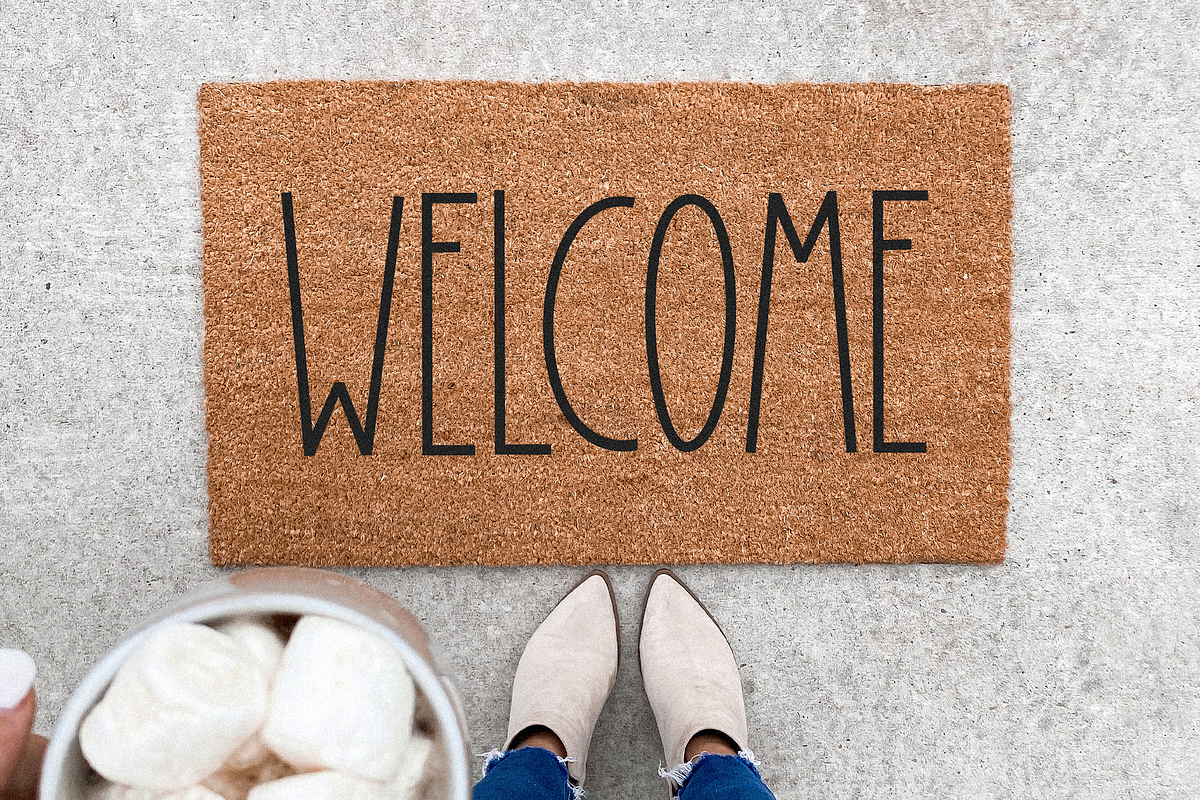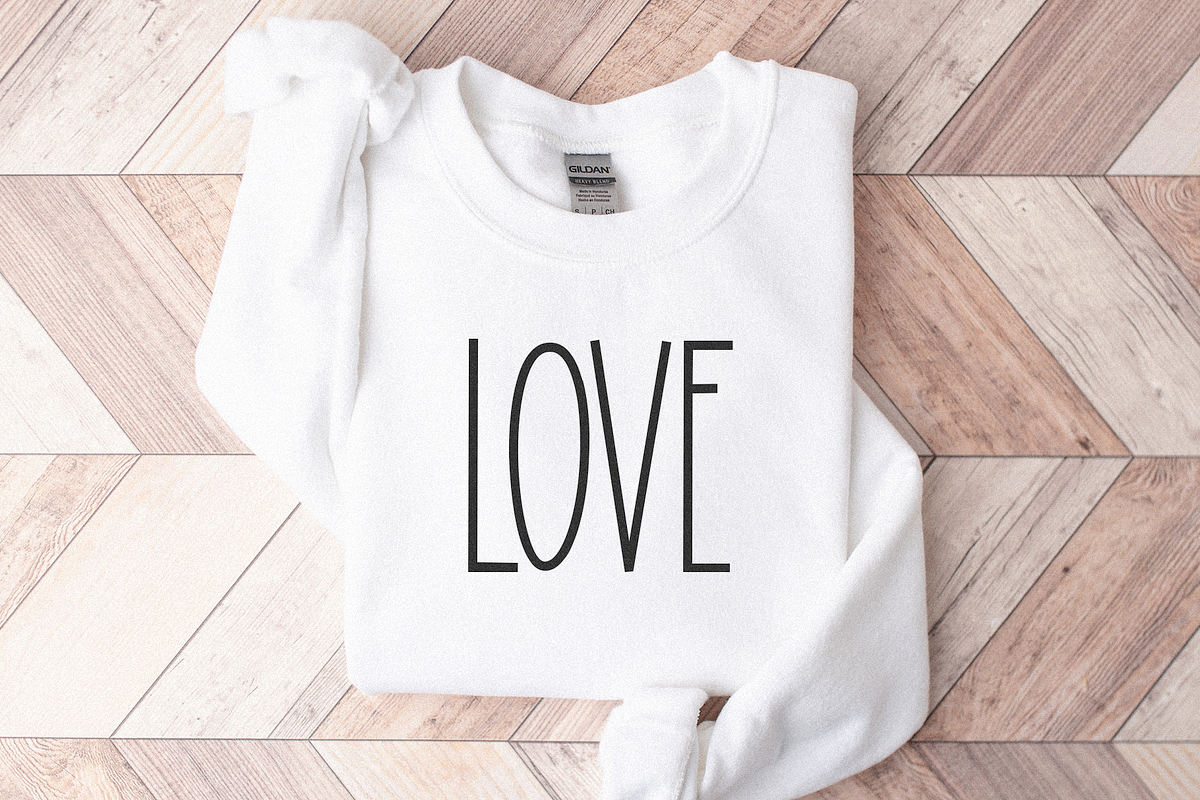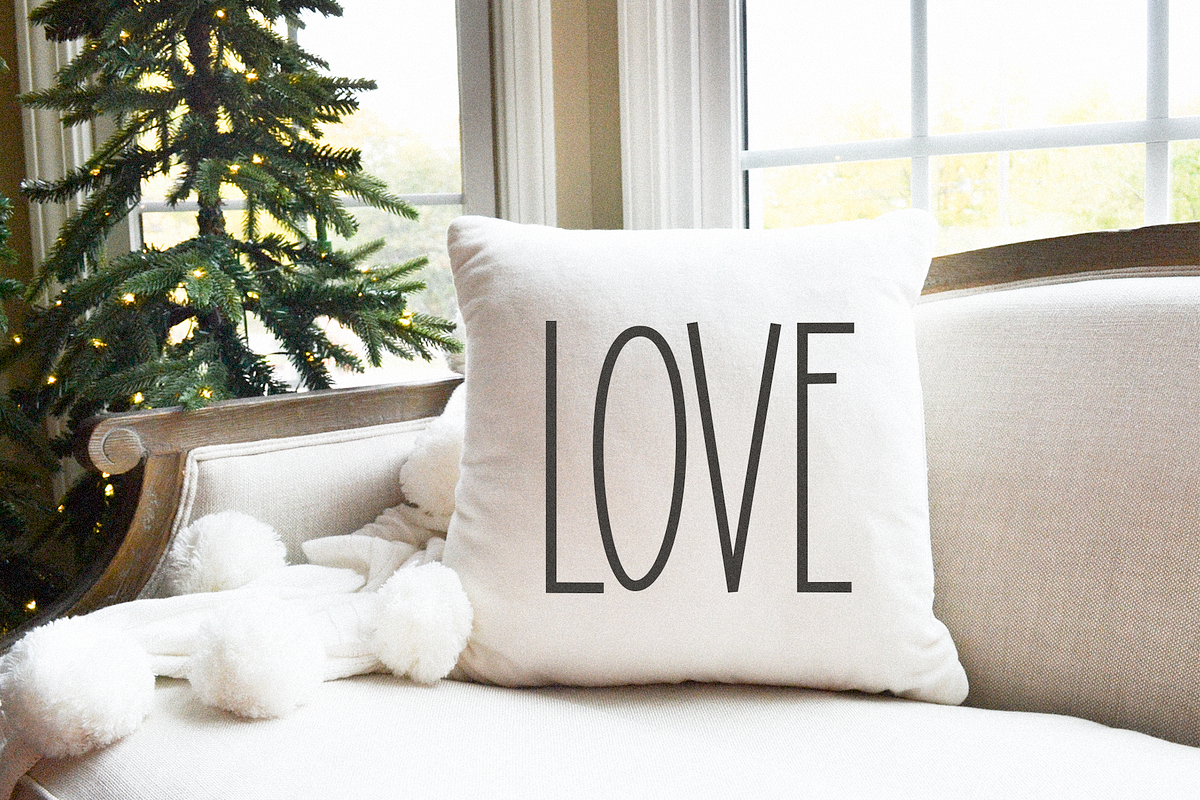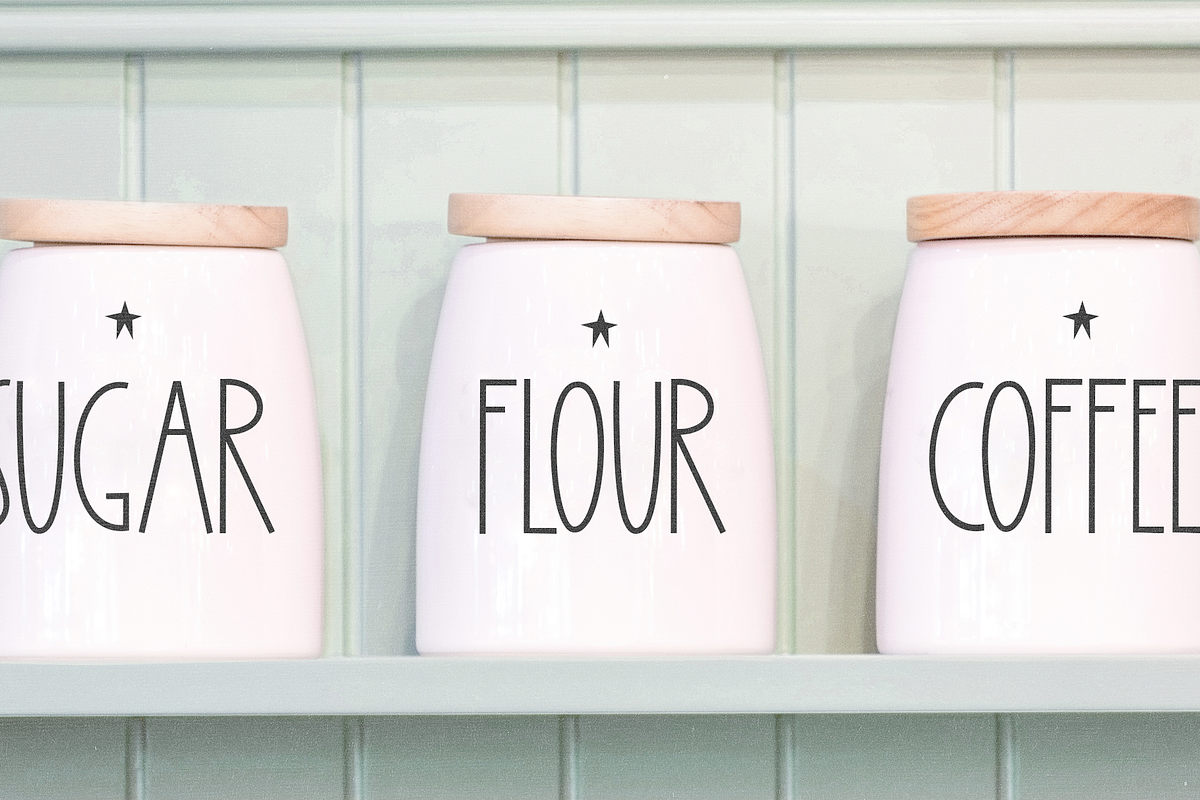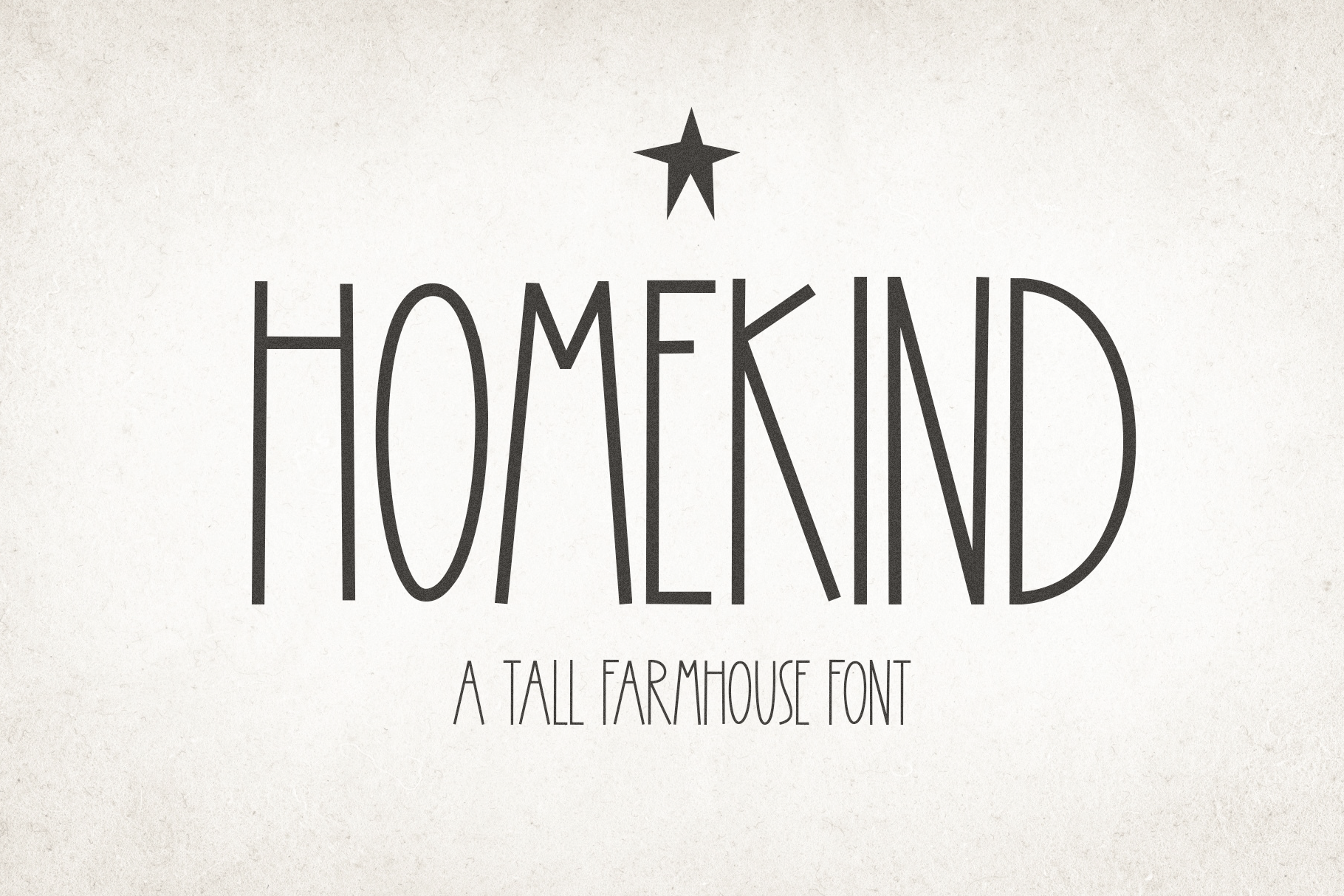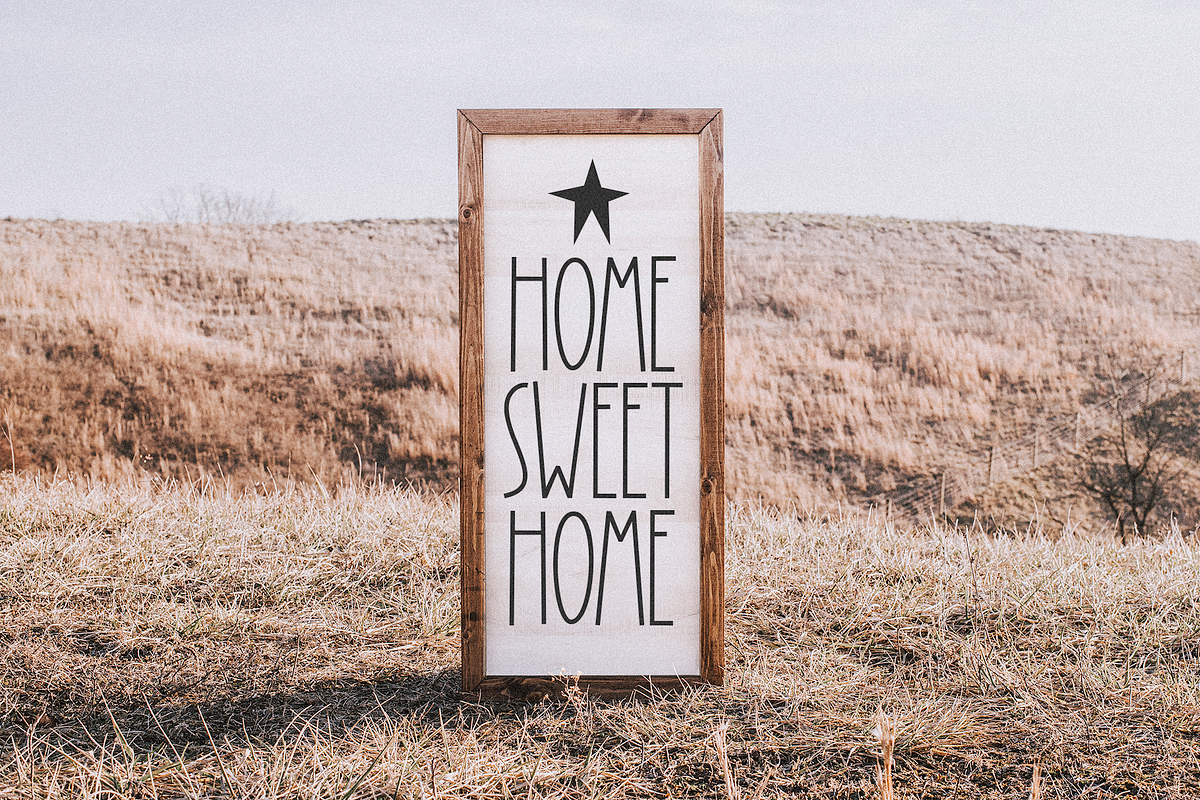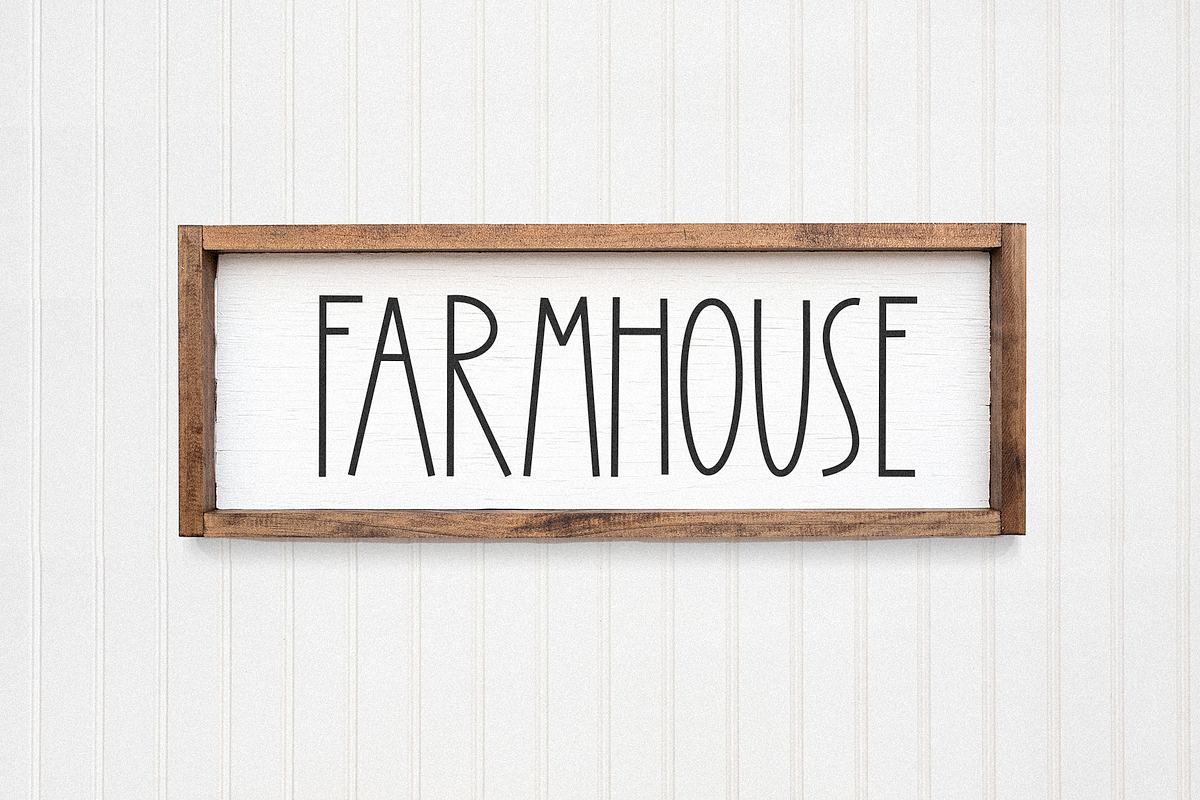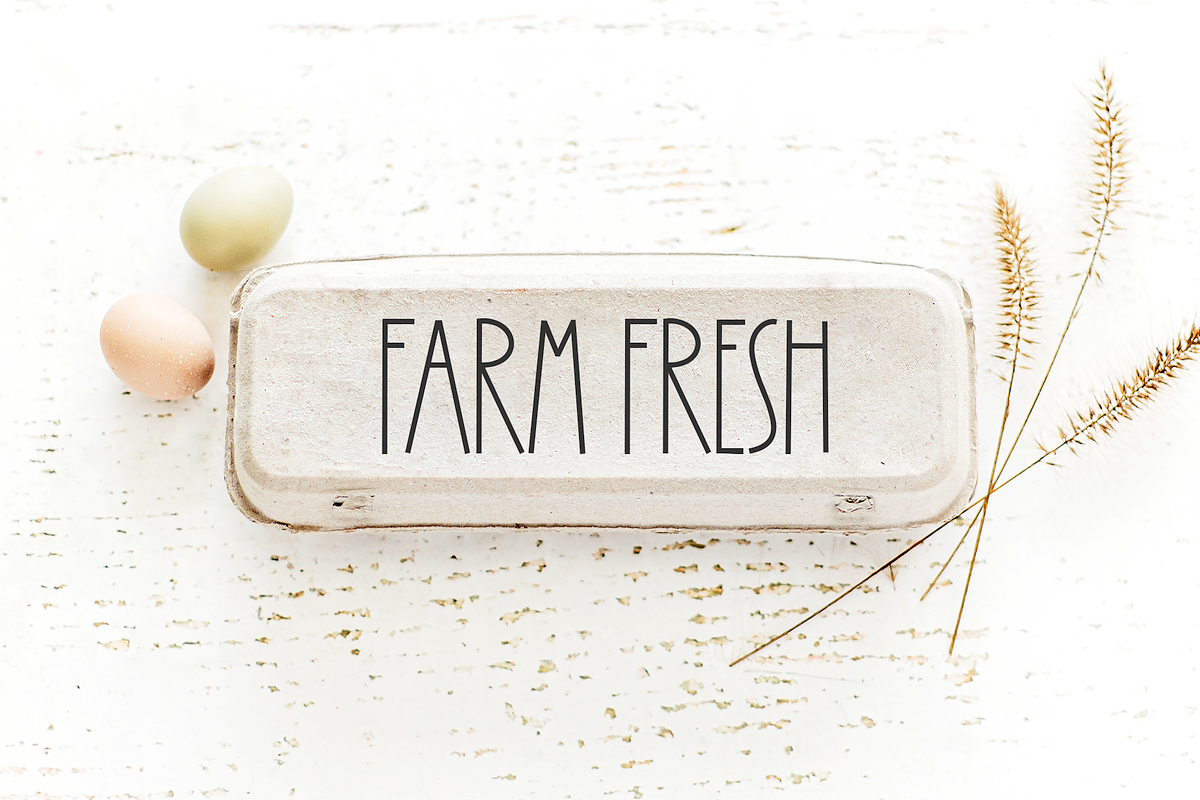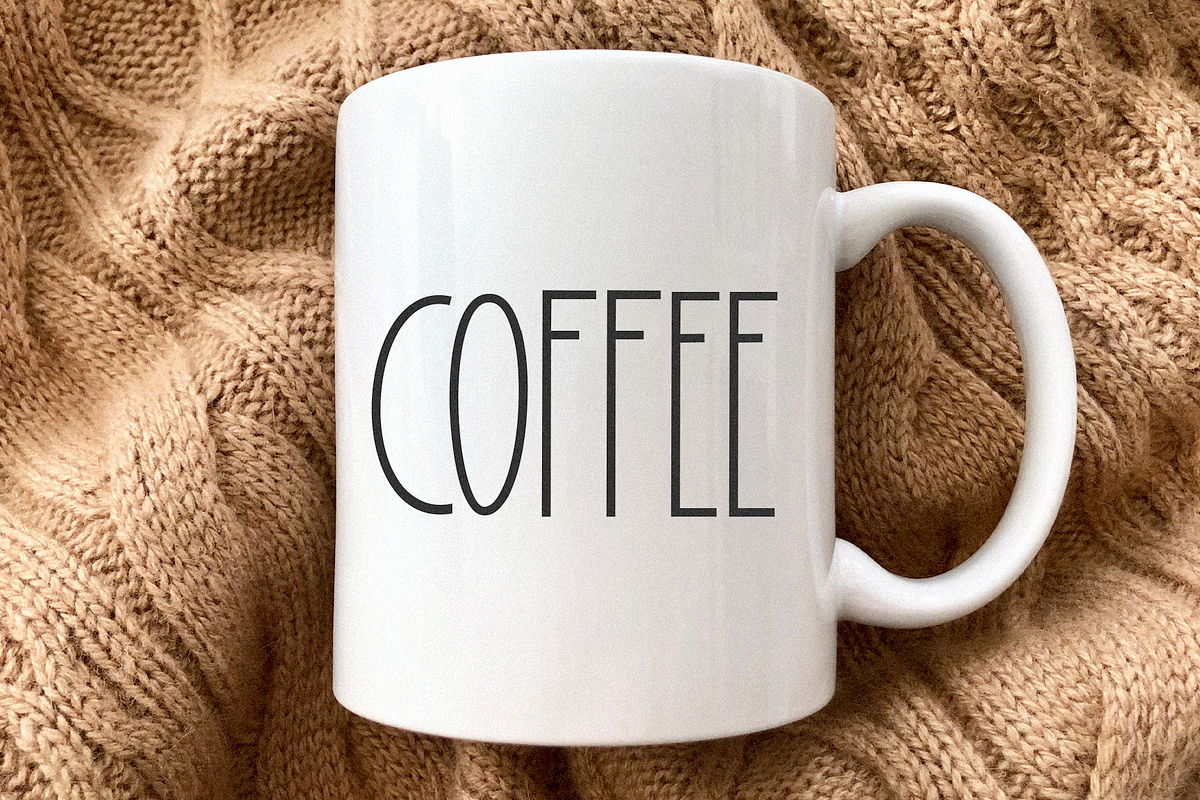
Homekind | Tall Farmhouse Font
Homekind is a tall farmhouse font.
This font is perfect for wedding decor, invitations, signs, logos, quotes, shirts, mugs, craft projects, farmhouse decor, svg files and more!